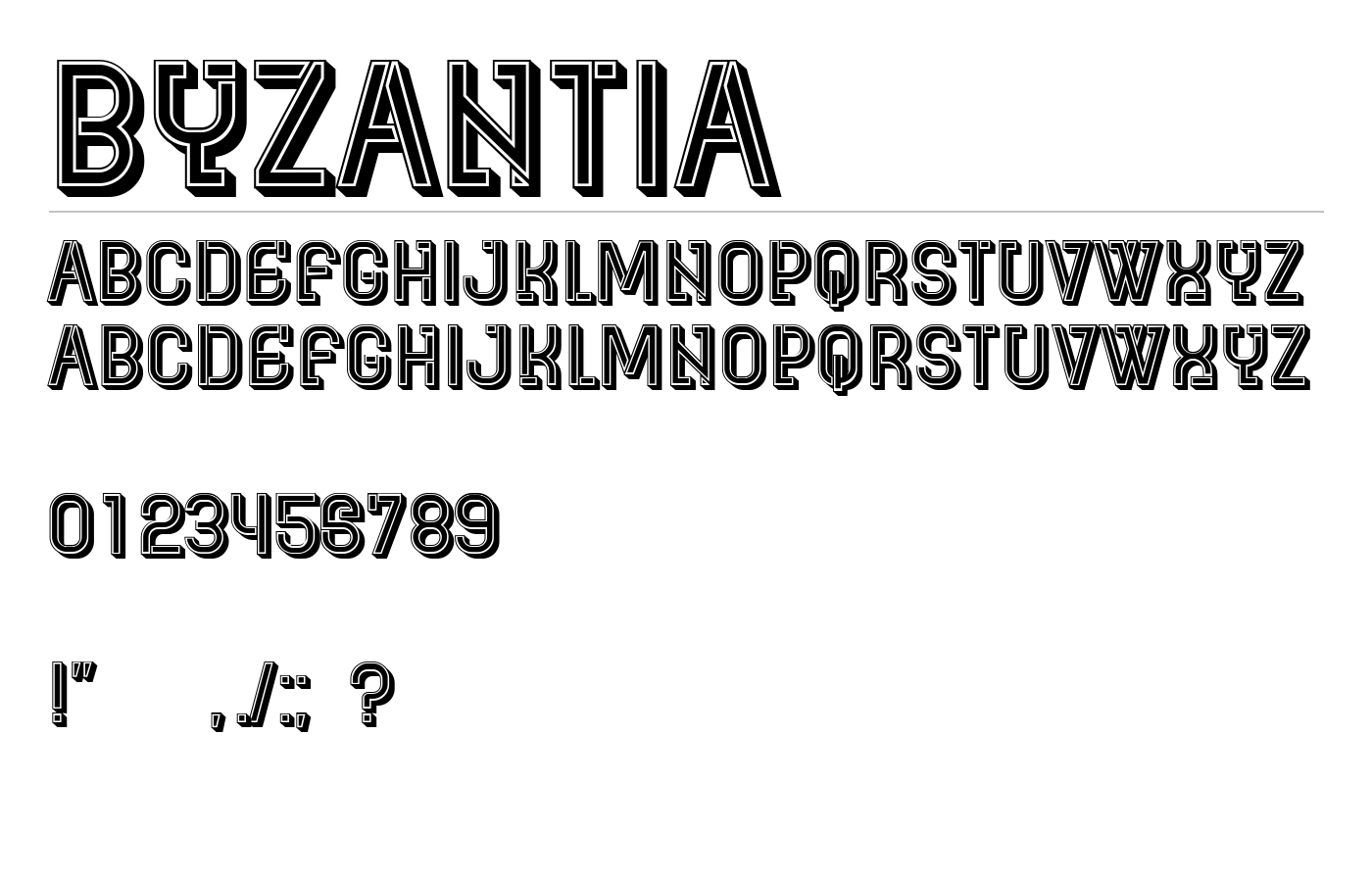
Byzantia is a bold, display sans serif font with a striking three-dimensional outline effect that gives it a vintage yet modern feel. Its tall, condensed letterforms with sharp angles and layered strokes create a dynamic, eye-catching presence perfect for headlines, logos, and branding that aim to stand out with a unique, artistic flair. This font works well in designs that seek to combine retro character with contemporary boldness, making it ideal for posters, fashion branding, and creative editorial projects.
Byzantia Font
About Byzantia Font